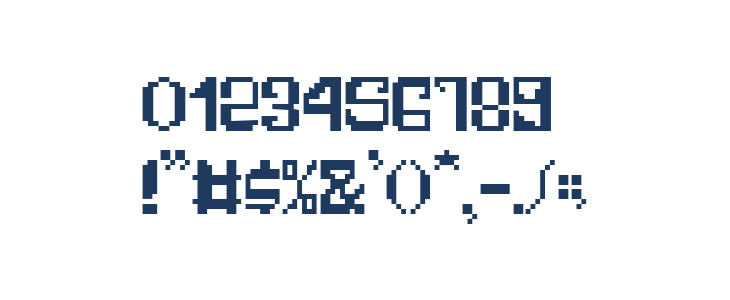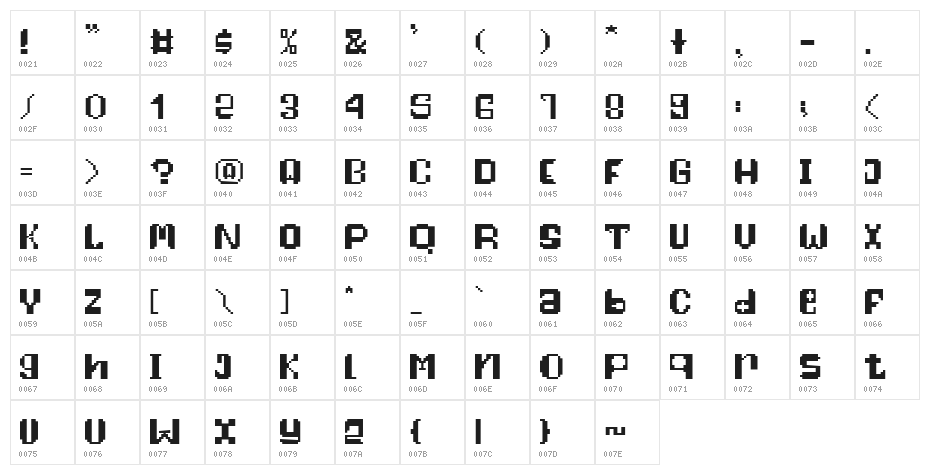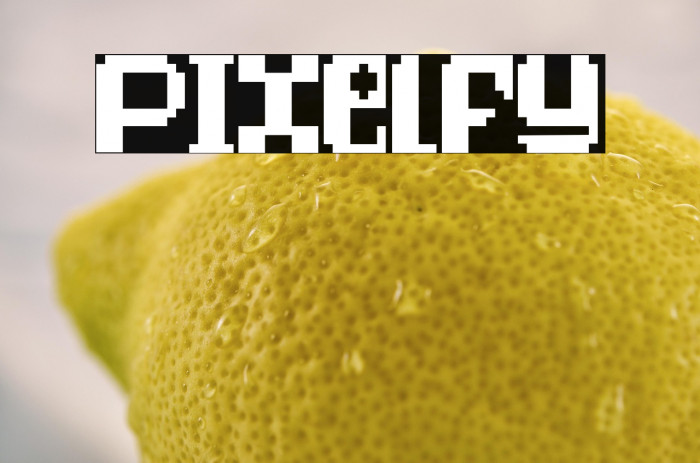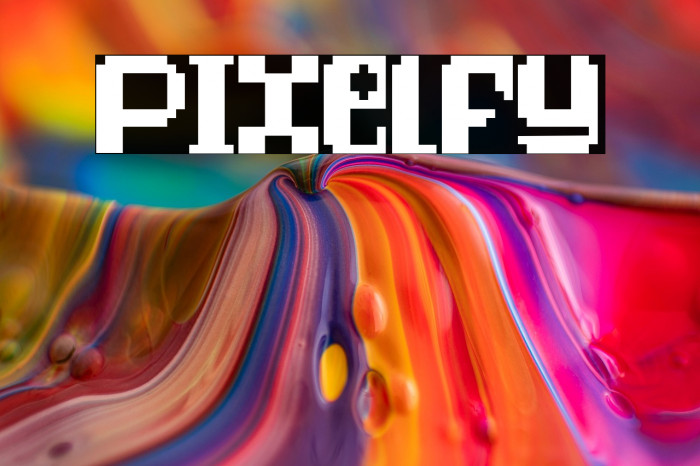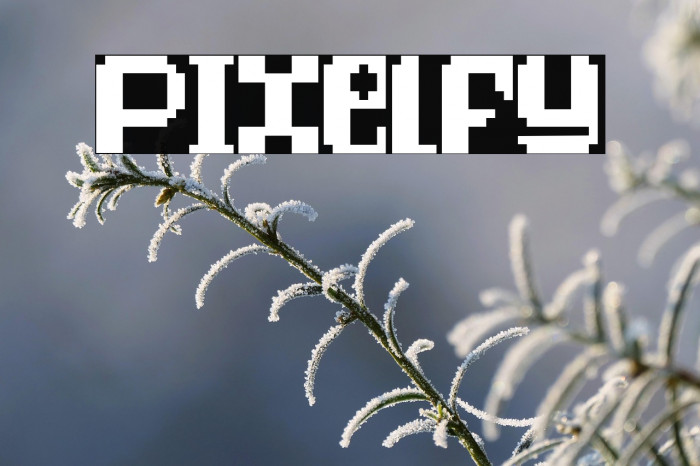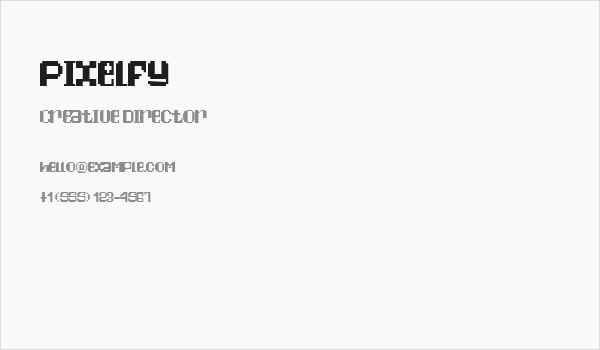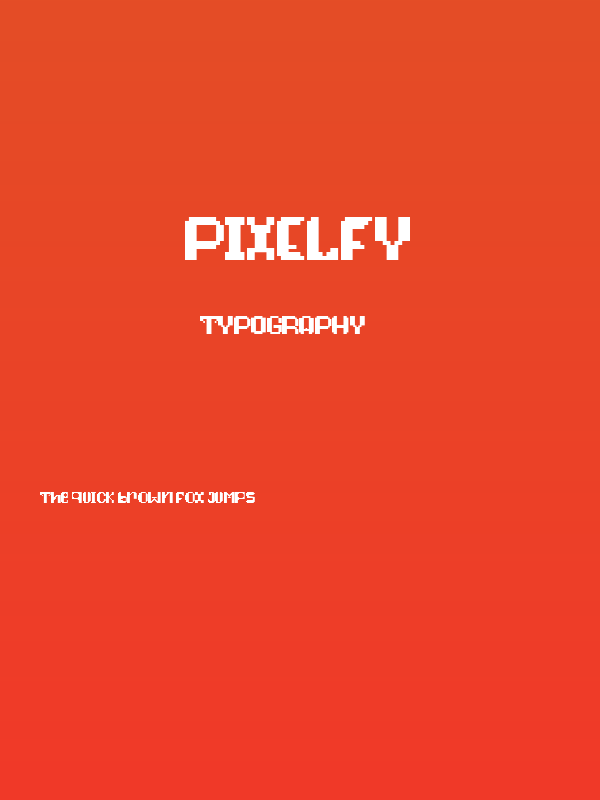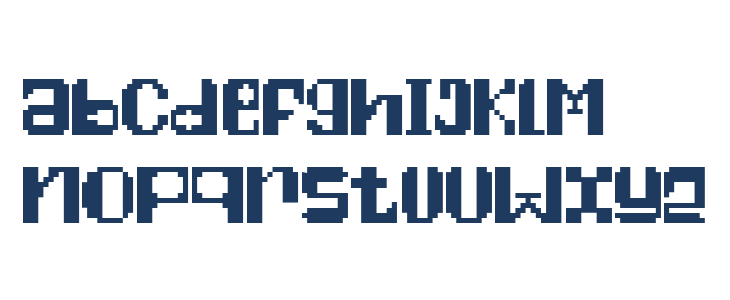
Pixelfy Font
Pixelfy Description
This font features a bold, pixelated design reminiscent of early digital and arcade aesthetics. Each character is constructed with a blocky, grid-like structure, giving it a distinctly retro and digital feel. The uppercase and lowercase letters maintain a consistent height, enhancing the uniformity of the design. Numbers and special characters follow the same pixelated style, ensuring a cohesive look across all elements. The font's geometric nature makes it ideal for projects that aim to evoke nostalgia or a tech-inspired theme.
| Overall Style | Retro, Digital |
| Proposed Projects | Ideal for video game graphics, retro-themed posters, digital art projects, and tech-related branding. |